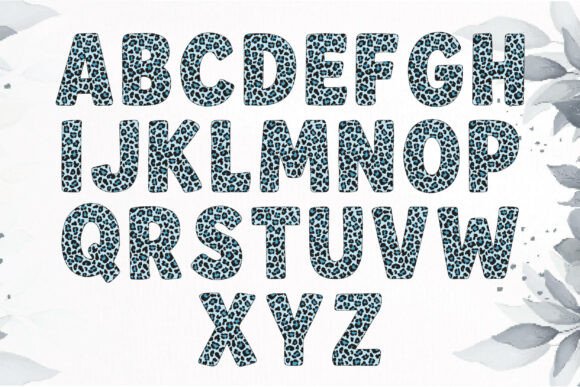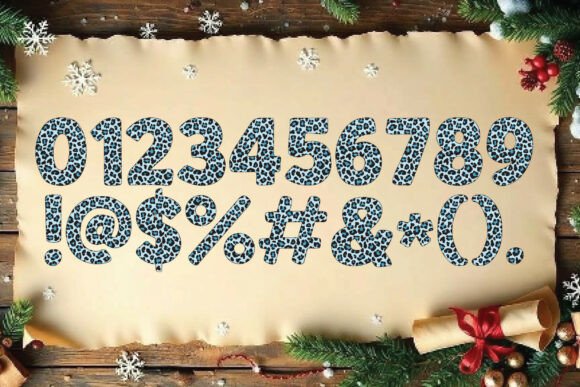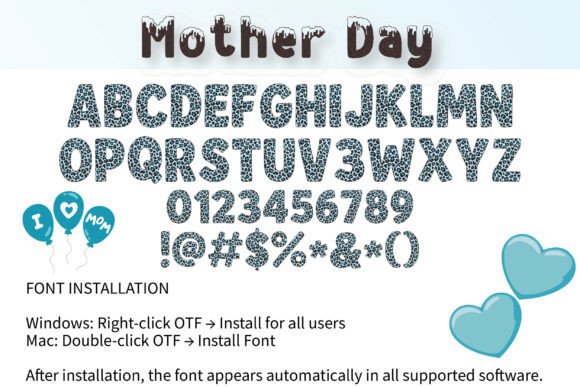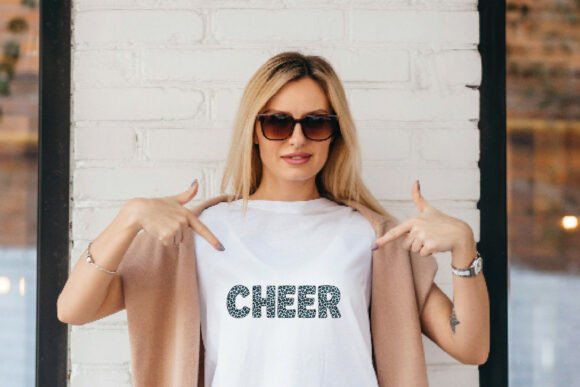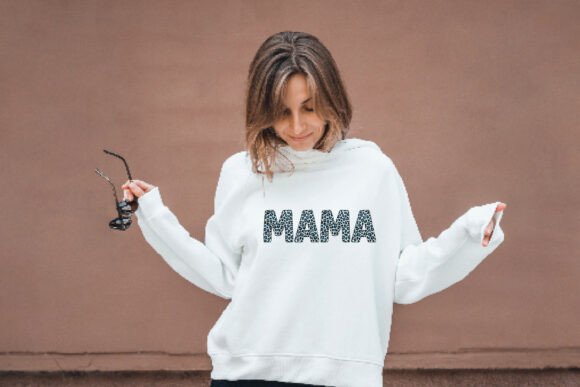
Introduction to Mother’s Day Font
Mother’s Day Alphabet & Letters Celebrate love and appreciation with this beautiful Mother’s Day Font.
Designed with a cute and stylish theme, this alphabet is perfect for creating heartfelt and trendy designs for moms and family celebrations Ideal for t-shirts, mugs, stickers, planners, scrapbooking, sublimation projects, greeting cards, and social media graphics.
Key Features of Mother’s Day Font
Why Choose Mother’s Day Font?
Mother’s Day Font offers exceptional quality and versatility, making it a valuable addition to your design toolkit. Whether you’re creating for personal projects or commercial use, Mother’s Day Font delivers professional results.